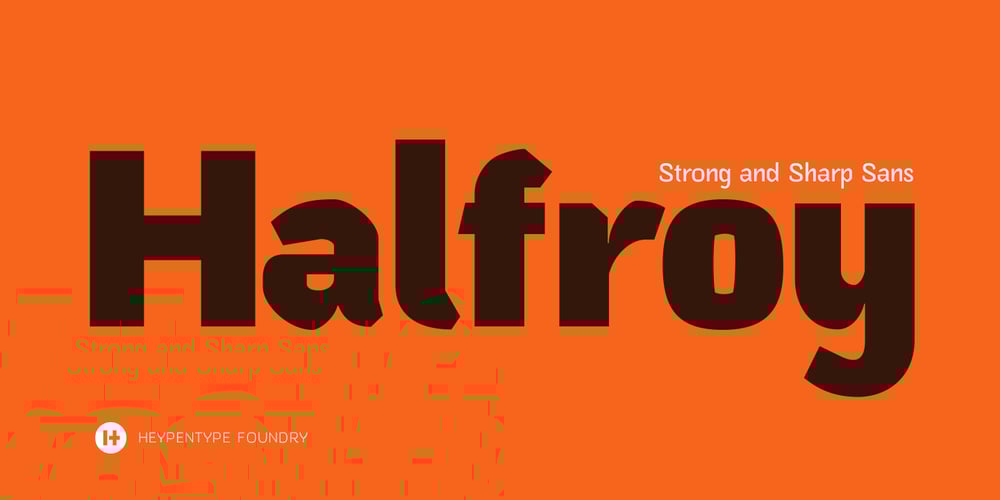
Halfroy
Halfroy font
Halfroy Font Family was designed by Rofiki Anas Maruf and published by Heypentype. Halfroy contains 5 styles and family package options. Halfroy is our answer to generic geometric sans trends exploding nowadays who creates sameness. Halfroy brings new sans perspectives by combining rounded and sharp edges to create delicate sans fonts. See the difference by looking at counter-shapes compared to outline, insides counter shapes you will sees a sharp edges while round but not geometrical on outlines.Halfroy gives your project unique visual impact whatever your design project is, but we recommend using thin, semibold to Fat as display then light and regular. Halfroy taken inspirations not from looking at other sans typeface, but its design inspirations comes from observing a land contour and geographical statistics in our city, Kota Batu. We found that our city geographic consist of steep slope like waves with sharp peaks and surrounded by small and third highest mountains peak on our country.From then on we begin visualize and applied on few letters. Take a look on our ‘O’, ‘f’, ‘s’ letters, its like a stone carved letters. Its hard edges and soft edges outline clearly draws from our inspiration source.Even Halfroy looks stony, hard as individual letters, we treat this type with humanist approach in mind. Therefore you can sense a friendly yet casuals of typical sans serif fonts when it grouped together to form a words or sentences.We hope Halfroy will gives your design project a unique on its own.